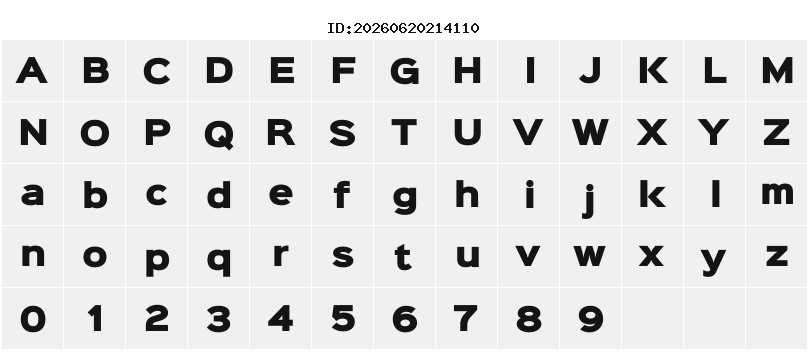
Sinkin Sans 900 X Black Preview
About Sinkin Sans 900 X Black.ttf
Sinkin Sans 900 X Black.ttf is a modern, elegant sans-serif font designed for ultimate readability and visual harmony. Perfect for branding, headlines, web design, and print materials.